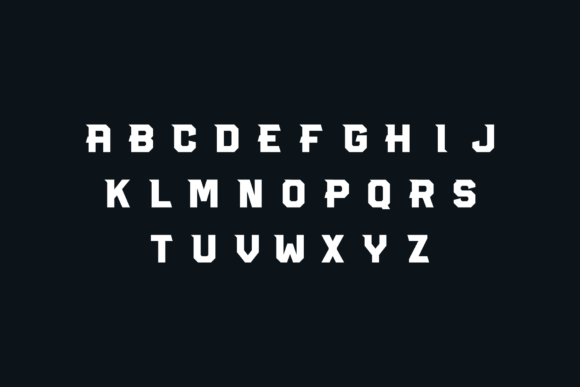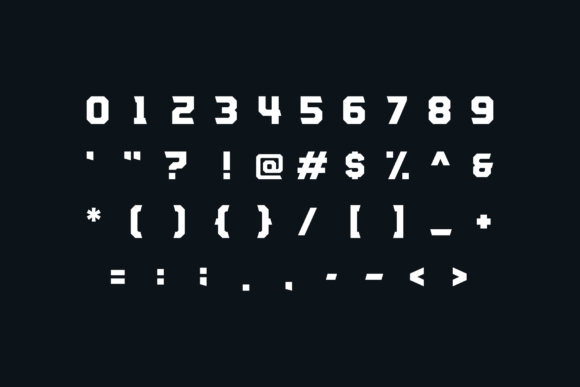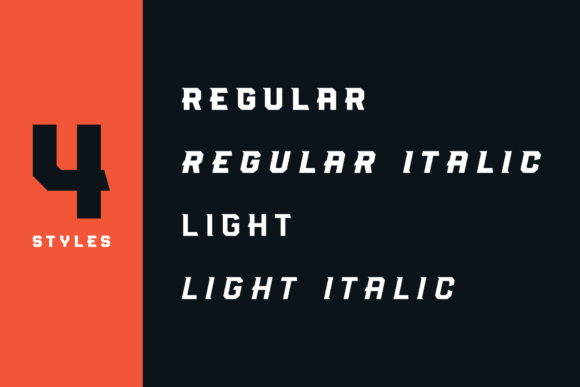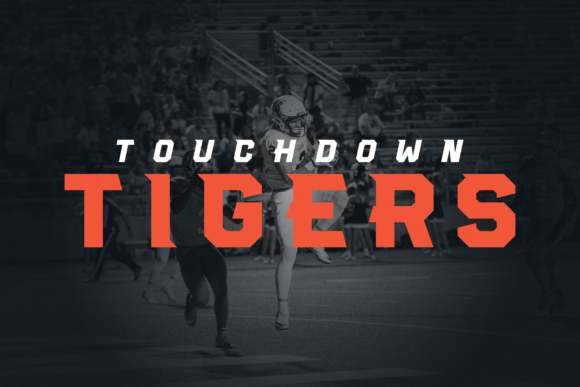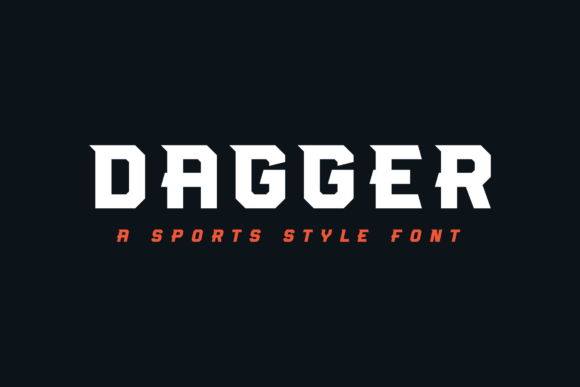
Dagger Font: The Ultimate Choice for Sports Branding and Design
In the world of design, fonts play a crucial role in conveying the message and tone of a project. For sports branding, apparel design, and other bold endeavors, a strong and eye-catching font is essential. This is where Dagger Font comes into play, a stunning display font that embodies the spirit of a pivotal shot in a game. In this article, we’ll dive into the world of Dagger Font, exploring its features, uses, and benefits for designers and crafters.
The Inspiration Behind Dagger Font
Dagger Font draws its inspiration from the sports term “dagger,” referring to a shot made in a crucial part of the game. This font captures the essence of that moment, exuding sharp, aggressive characteristics that make it perfect for sports branding, apparel design, and other bold projects. The font’s creator aimed to craft a typeface that would evoke the emotions of excitement, energy, and competition, making it an ideal choice for designers seeking to make a statement.
Key Features of Dagger Font
Dagger Font boasts several key features that make it a standout choice for designers:
- Sharp and Aggressive Design: The font’s sharp lines and aggressive curves give it a bold, edgy look that’s perfect for sports branding and apparel design.
- High-Impact Legibility: Dagger Font is designed to be highly legible, even at large sizes, making it ideal for headlines, titles, and promotional materials.
- Versatility: This font can be used for a wide range of projects, from sports teams and events to fashion brands and lifestyle products.
- Easy to Pair: Dagger Font pairs well with a variety of other fonts, making it easy to incorporate into existing design systems.
Uses of Dagger Font
Dagger Font is an incredibly versatile typeface, suitable for a wide range of applications:
- Sports Branding: Use Dagger Font to create bold, eye-catching logos and branding materials for sports teams, events, and leagues.
- Apparel Design: Add a competitive edge to your apparel designs with Dagger Font, perfect for t-shirts, hoodies, and other sporty wear.
- Promotional Materials: Make your promotional materials stand out with Dagger Font, ideal for posters, flyers, and social media graphics.
- Fashion and Lifestyle: Use Dagger Font to add a touch of boldness to your fashion and lifestyle branding, packaging, and marketing materials.
Benefits of Using Dagger Font
By incorporating Dagger Font into your designs, you’ll enjoy several benefits:
- Instant Recognition: Dagger Font’s bold design ensures instant recognition, grabbing the attention of your audience and leaving a lasting impression.
- Professional Look: The font’s high-quality design and sharp lines give your projects a professional, polished look.
- Flexibility: Dagger Font’s versatility allows you to use it across various projects and applications, making it a valuable addition to your design toolkit.
Tips for Using Dagger Font Effectively
To get the most out of Dagger Font, follow these expert tips:
- Use it Boldly: Don’t be afraid to use Dagger Font in bold, eye-catching applications, such as headlines and titles.
- Pair it Wisely: Experiment with different font pairings to find the perfect match for your design.
- Consider Contrast: Use contrasting colors and design elements to make your Dagger Font designs pop.
Dagger Font is a powerful, attention-grabbing typeface that’s perfect for sports branding, apparel design, and bold projects. With its sharp, aggressive characteristics and high-impact legibility, this font is sure to make your designs stand out. Whether you’re a designer, crafter, or entrepreneur, Dagger Font is an excellent addition to your toolkit. So why wait? Download Dagger Font today and take your designs to the next level!